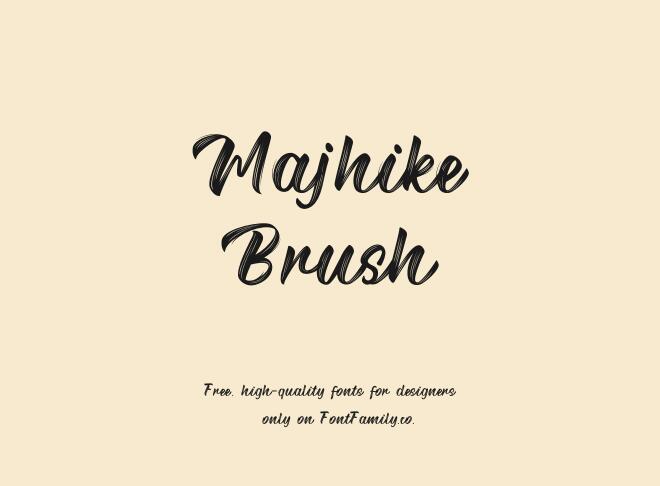
Majhike Brush Font
Majhike Brush Font is a distinct, expressive typeface with a unique brush style. Crafted by Creatype Studio, it combines the spontaneity of hand-painted designs with the precision of digital typography. Its bold brush strokes and organic texture make it a standout choice for logos, quotes, posters, and apparel design. The font is reminiscent of classic calligraphy, yet it exudes a modern vibe that is hard to resist. Its versatile look can easily blend with a variety of design aesthetics, from rustic to modern. Majhike Brush Font is free for personal use, making it a fantastic resource for budding designers and seasoned professionals alike. Its expressive nature makes it a perfect choice for projects where you want your text to make a strong statement.